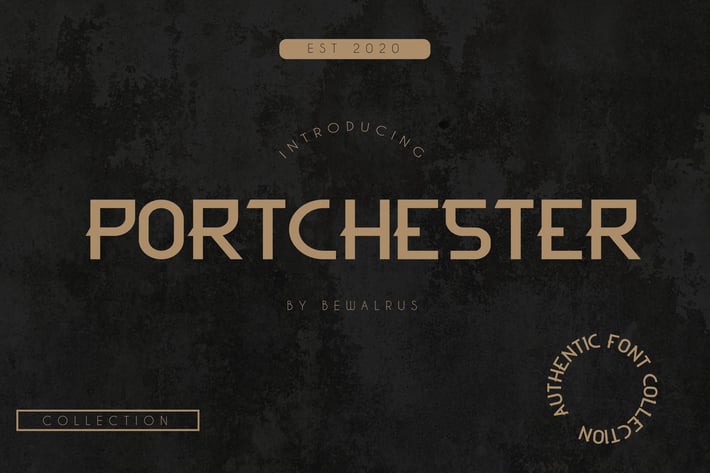
Portchester Font
Bewalrus
Portchester is perfect for branding projects, logo, badges design, social media posts, advertisements, product packaging, product designs, label, photography, watermark, invitation, stationery and any projects that need sans serif taste